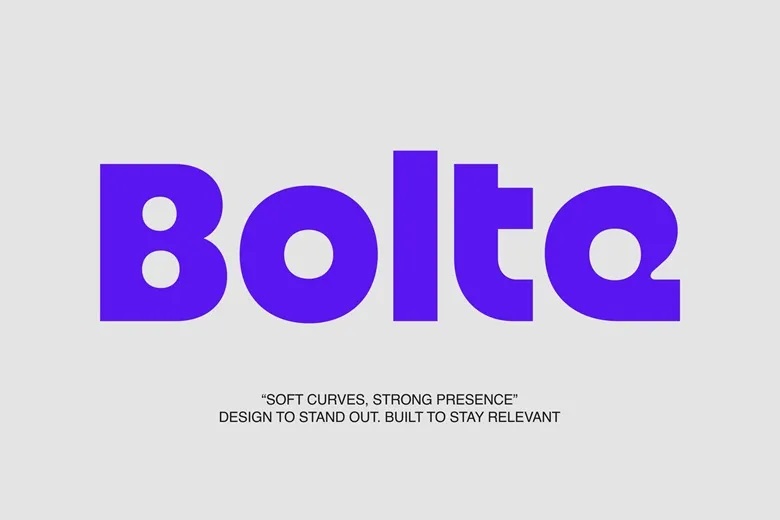
Bolte Font Family
Bolte is a rounded display sans-serif designed for weight, warmth, and clarity. With its generous proportions, soft ends, and steady rhythm, it feels approachable yet makes a strong impression. The design uses broad curves, tight spacing, and high visual density to give each word a bold, unified look.
Rounded details soften the feel, making it welcoming and easy to use for packaging, products, headlines, branding, and digital projects. Bolte adds confidence, charm, and memorability to any project, whether it’s a logo, package design, or display headline.
Bolte Sans Serif Font Family